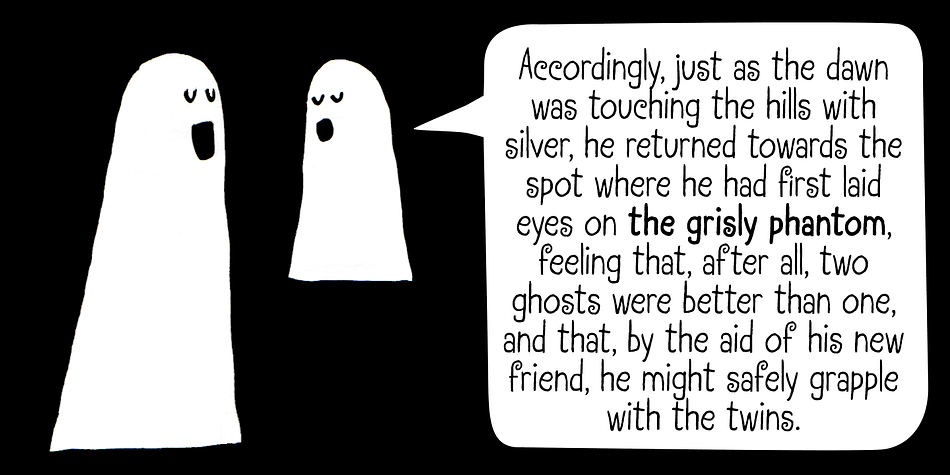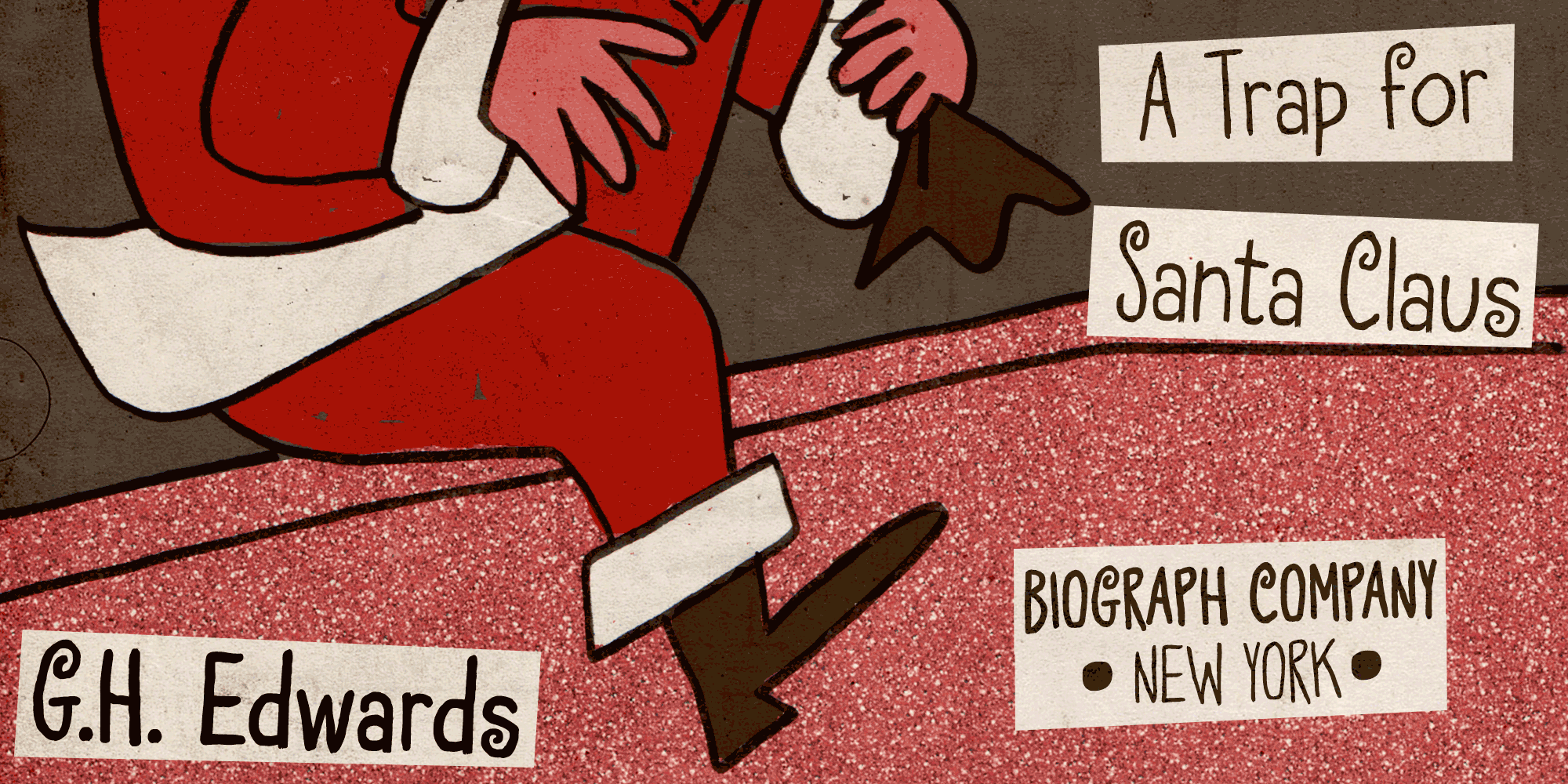
Transmogrified
Designed by Ricardo Marcin and Erica Jung, Transmogrified is a hand drawn and kids font family. This typeface has two styles and was published by PintassilgoPrints.
Transmogrified started out as a special project for a client. It’s a lovely sans serif font, casual, with sweet swirls over here and there.
It is based on Transmogrifier, from which the uppercase glyphs were selected. New lowercase glyphs were drawn and a bold cut was also developed for added flexibility.
Now let your messages be transmogrified!